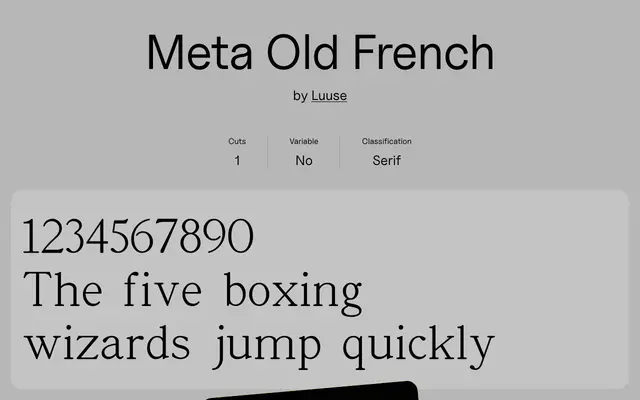
Meta Old French
A single-cut serif by Luuse drawing on Old French typographic traditions, available free under the SIL Open Font License.
Released by Luuse and distributed via Uncut, this is a single-cut display serif with roots in Old French letterform conventions. It carries an SIL Open Font License permitting commercial use, modification and redistribution with conditions. The family is non-variable and offers no width or weight variants.
Classified as serif by the foundry; the name and single-cut structure suggest a decorative or historical display serif in the Old French tradition.